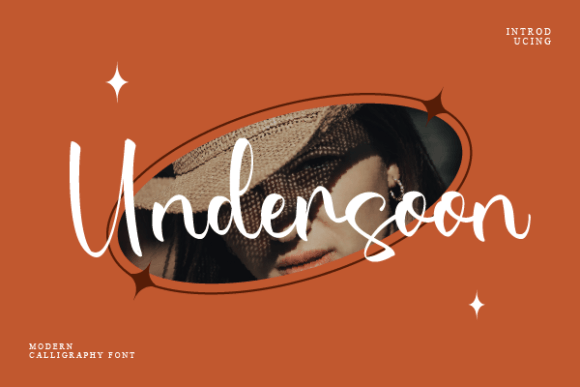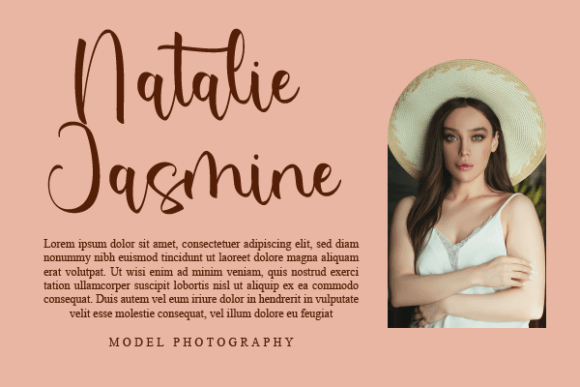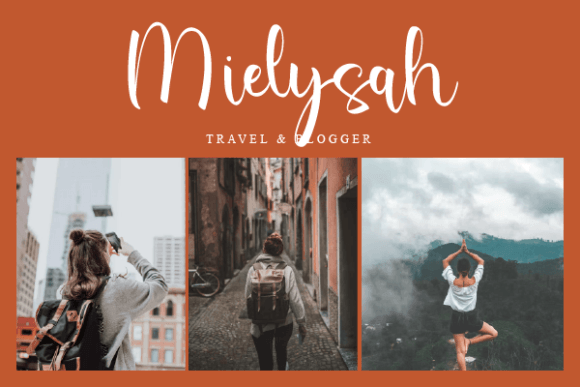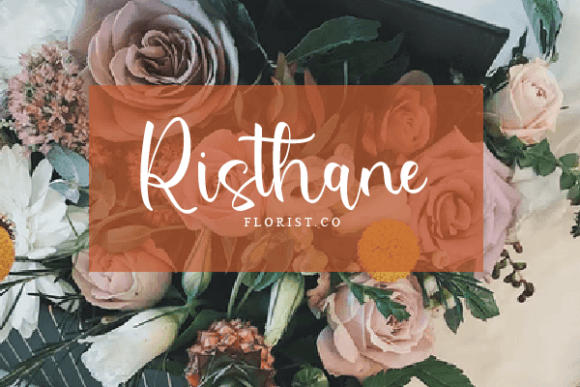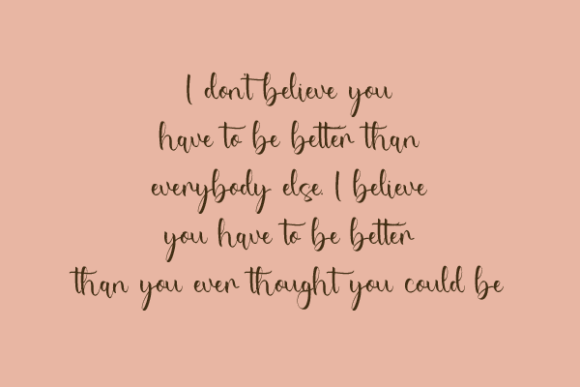
Undersoon Font
About Undersoon Font
**Introducing Undersoon: Where Elegance Meets Expression**
Meet **Undersoon**, a stunning handwritten font designed to infuse elegance and sophistication into your projects. Whether you’re working on wall displays, wedding invitations, social media posts, logos, advertisements, product packaging, or any other creative endeavor, **Undersoon** adds a touch of beauty and charm that captivates the senses.
**Timeless Elegance:**
With its graceful strokes and refined lines, **Undersoon** exudes timeless elegance. This font is more than just letters; it’s a visual masterpiece that elevates your designs to the realm of sophistication. Its delicate yet confident style makes it perfect for projects that demand a touch of class and grace.
**Versatile and Expressive:**
**Undersoon** is designed to be versatile, adapting seamlessly to a wide range of projects. Whether you’re crafting an exquisite wedding invitation, a captivating social media post, an alluring logo, or a compelling product label, this font effortlessly expresses your creativity. Its ability to convey emotions and ideas through typography makes it an invaluable tool for any designer.
**Enhance Your Brand Identity:**
Your brand deserves to be represented with elegance and style, and **Undersoon** is the ideal choice to enhance your brand identity. Whether you’re designing product packaging, labels, or promotional materials, this font adds a touch of sophistication that resonates with your audience. Elevate your brand’s presence and leave a lasting impression with the enchanting allure of **Undersoon**.
**Perfect for Various Projects:**
**Undersoon** is a versatile companion for a multitude of projects. Its beauty shines on wedding invitations, captivating on social media posts, and mesmerizing on product packaging. Its expressive nature allows it to convey the essence of your message, making it a powerful asset in your creative arsenal.
**Create Timeless Designs:**
With **Undersoon**, your designs become timeless works of art. Its elegance and beauty are destined to make a lasting impact, ensuring that your creations are remembered and admired. Whether you’re designing invitations, advertisements, or branding materials, let **Undersoon** transform your designs into masterpieces that stand the test of time.
**Experience Timeless Beauty with Undersoon:**
Embrace the beauty of **Undersoon** and let its elegance transform your designs into timeless expressions of creativity. Elevate your projects with the enchanting allure of this exquisite font, where elegance meets expression. Discover the power of elegance and create designs that leave a lasting impression with **Undersoon**.